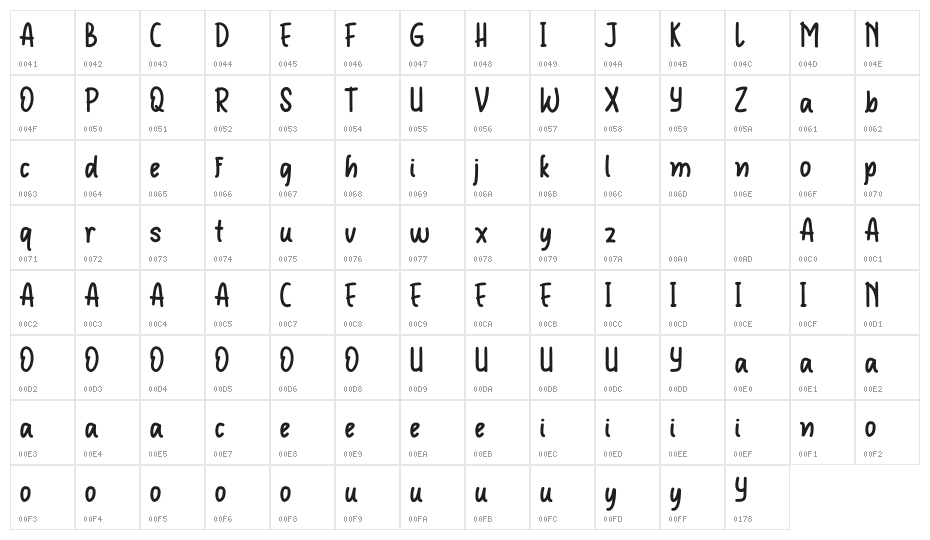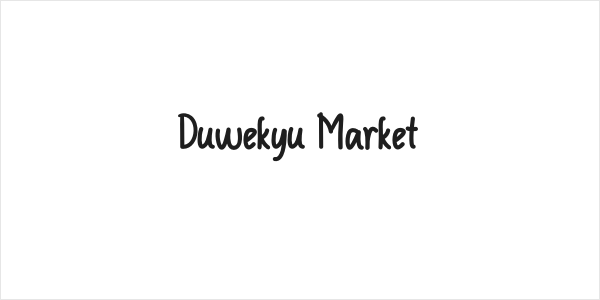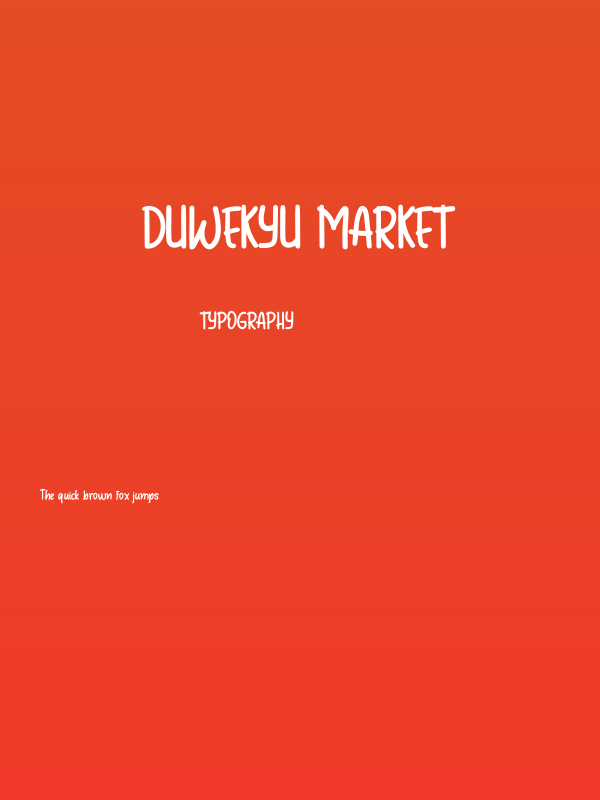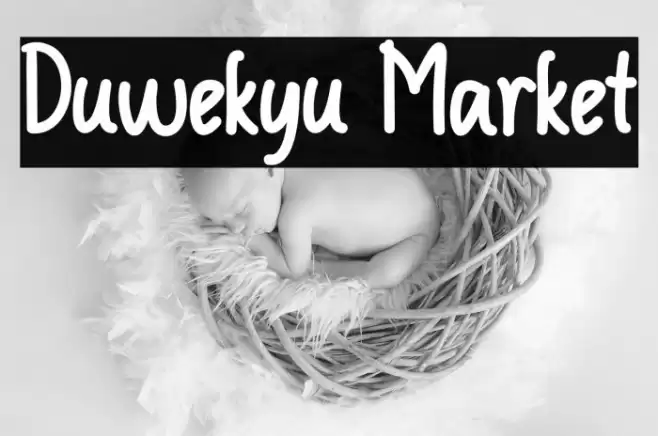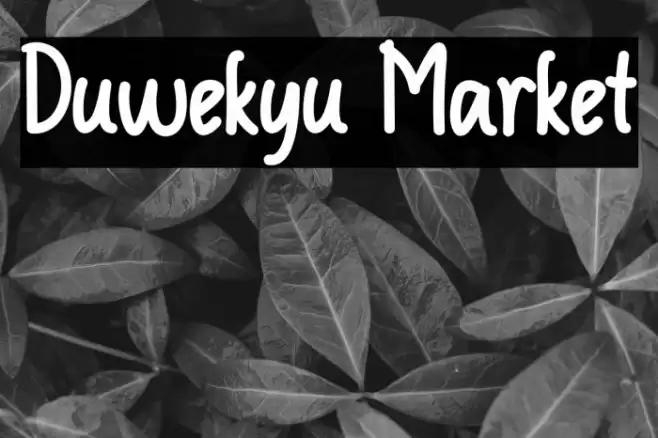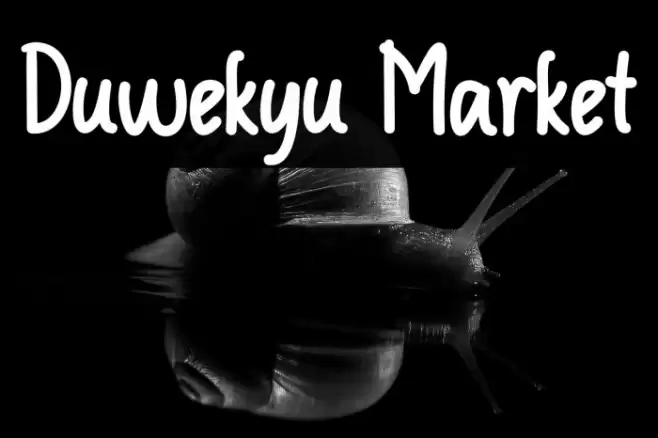
Duwekyu Market Font
Duwekyu Market Description
This font features a playful and informal style with rounded edges and a handwritten appearance. The uppercase letters are bold and slightly condensed, while the lowercase letters maintain a consistent flow with a casual script-like quality. The characters exhibit a medium contrast in stroke thickness, adding to the dynamic and lively feel. The font is well-suited for projects that require a friendly and approachable look, such as children's books, casual branding, or creative posters. The spacing between characters is normal, ensuring readability while maintaining its whimsical charm.
| Width | Condensed |
| Overall Style | Playful |
| Proposed Projects | Ideal for children's books, casual branding, and creative posters. |